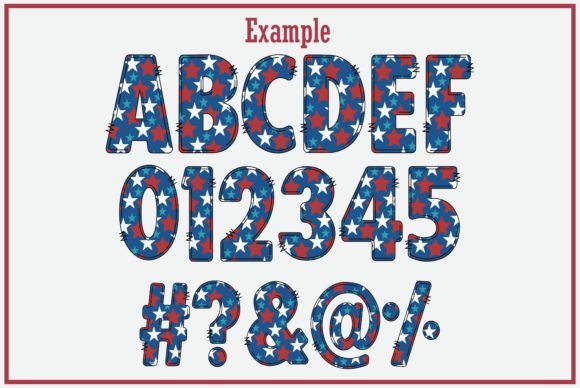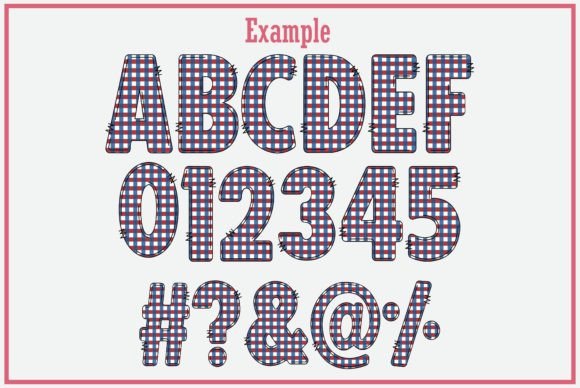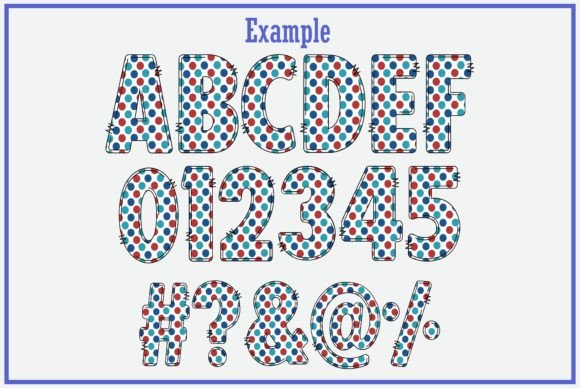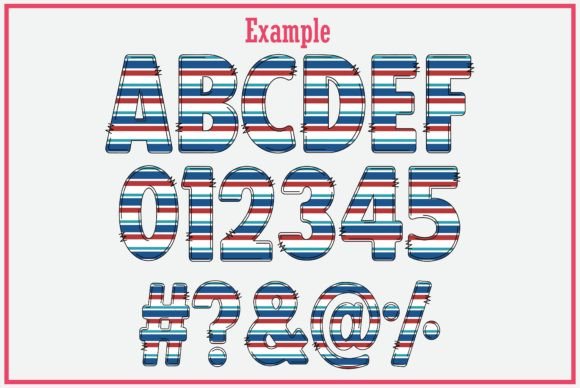
Introduction to Memorial Font
Imagine you’re brainstorming ideas for a 4th of July-themed project, and suddenly, a spark of creativity hits you. You envision a bold, eye-catching design that screams patriotism and freedom. That’s exactly where the Memorial Font comes in – a stunning decorative color font inspired by the United States flag.
This free download is a treasure trove for designers, offering a high-quality design resource that’s perfect for any creative project related to the USA. Whether you’re working on a patriotic-themed website, a social media campaign, or a print design, the Memorial Font is sure to add a touch of elegance and sophistication. With its transparent background, this font is incredibly versatile and can be used in a variety of contexts.
Key Features of Memorial Font
- Unique Memorial Design: This font features a distinctive memorial-inspired design, perfect for creating a somber and respectful atmosphere in your creative project.
- High-Quality Font: Memorial Font is a high-quality design resource, available for free download, and suitable for various applications, including wedding invitations, funeral programs, and memorial cards.
- Transparent Background: The font has a transparent background, allowing for easy customization and integration into your design without any distracting backgrounds.
Honest Review: Memorial Font
As a designer, I’m always on the lookout for high-quality design resources that can elevate my creative projects. The Memorial Font is a free download that caught my attention, and I’m excited to share my honest review with you.
What works well: ✨ The Memorial Font offers a range of elegant and sophisticated designs that are perfect for memorial tributes, anniversary celebrations, or any other occasion that requires a touch of elegance. The font is available in both regular and bold styles, making it easy to mix and match to suit your design needs.
- Available in regular and bold styles
- Perfect for memorial tributes, anniversary celebrations, and other occasions
- High-quality design that’s easy to customize
What could be improved: ⚠️ One limitation of the Memorial Font is that it’s a fixed-width font, which may not be suitable for all design projects. Additionally, the font only includes uppercase letters, so you may need to use a separate font for lowercase letters.
Overall impression: The Memorial Font is a great addition to any designer’s toolkit, offering a range of elegant and sophisticated designs that are perfect for creative projects. While it may have some limitations, the high-quality design and easy customization make it a valuable resource for designers of all levels.
Memorial Font
Tips for Getting the Most Out of Memorial Font
Use the Memorial Font in combination with a photo or image to create a poignant memorial design. Experiment with different font sizes and styles to add emphasis to your text. You can also use the transparent background feature to create a sense of depth and dimension.
The Memorial Font is ideal for creating memorial plaques, obituaries, funeral programs, and memorial cards. You can also use it to create a memorial website or social media post. With its high-quality design and transparent background, the Memorial Font is a versatile resource for any creative project.